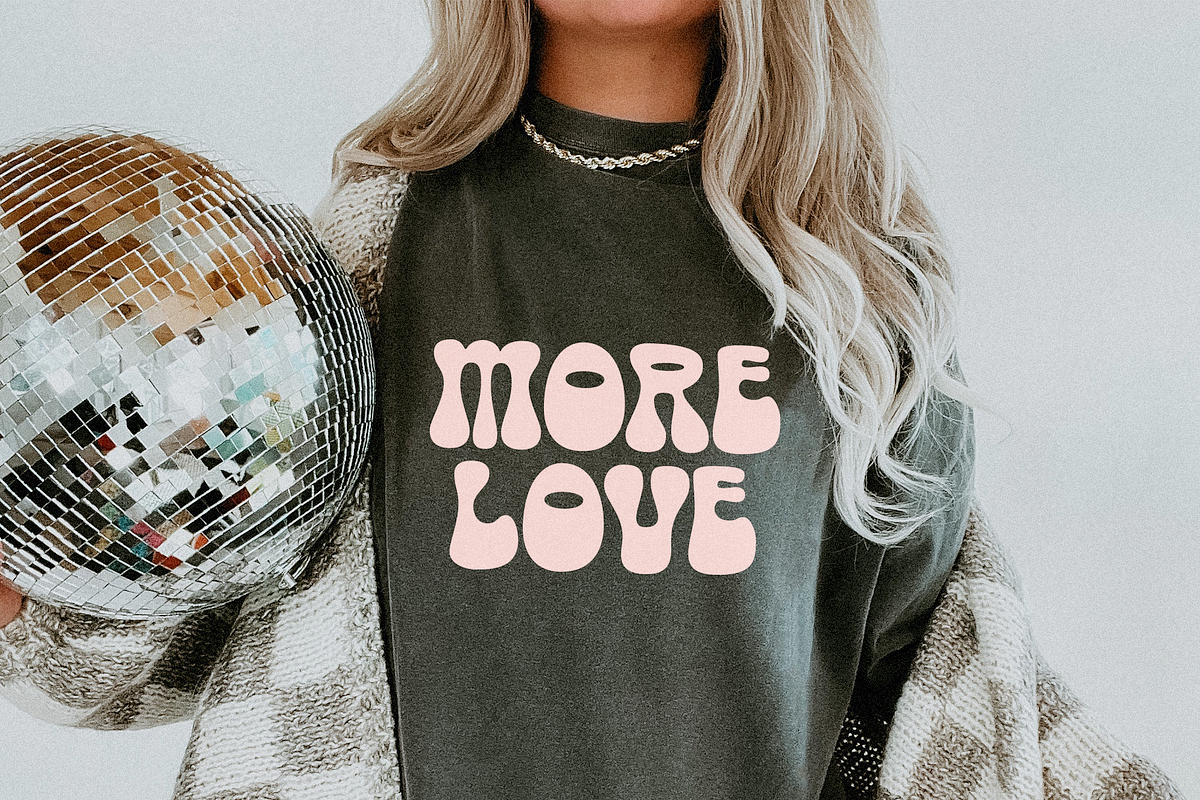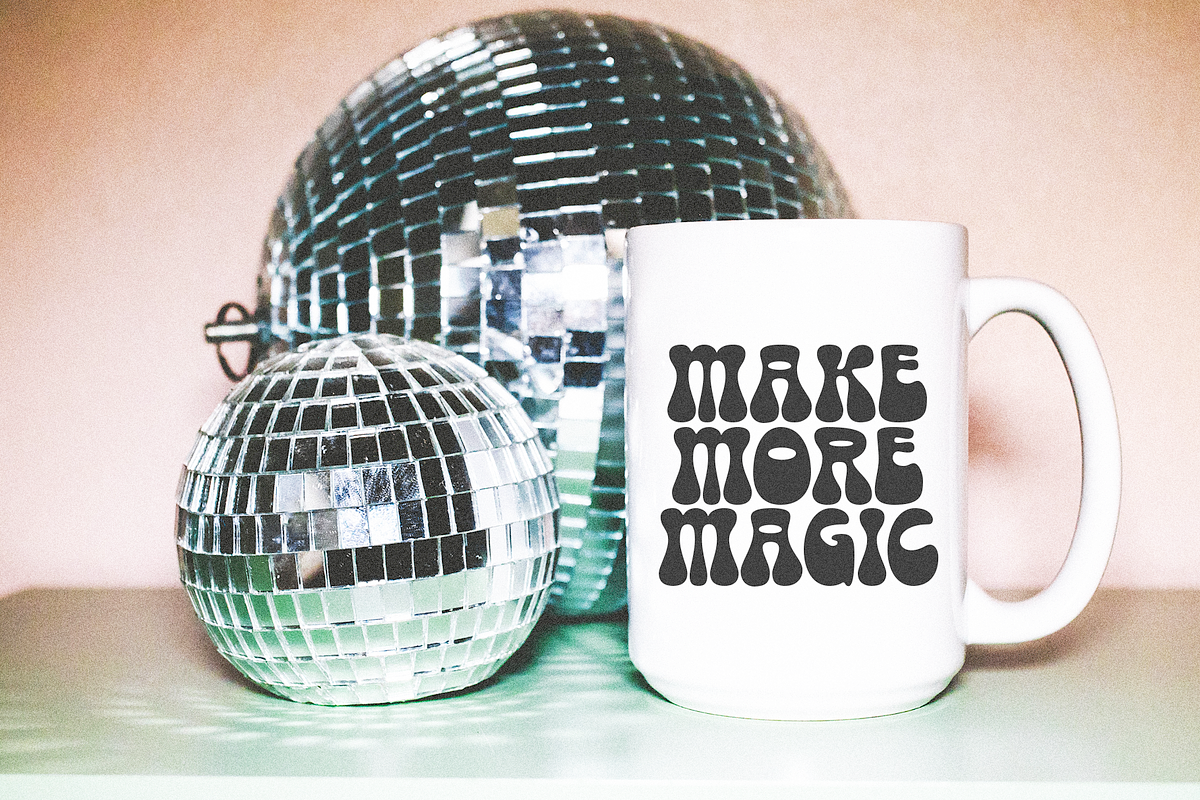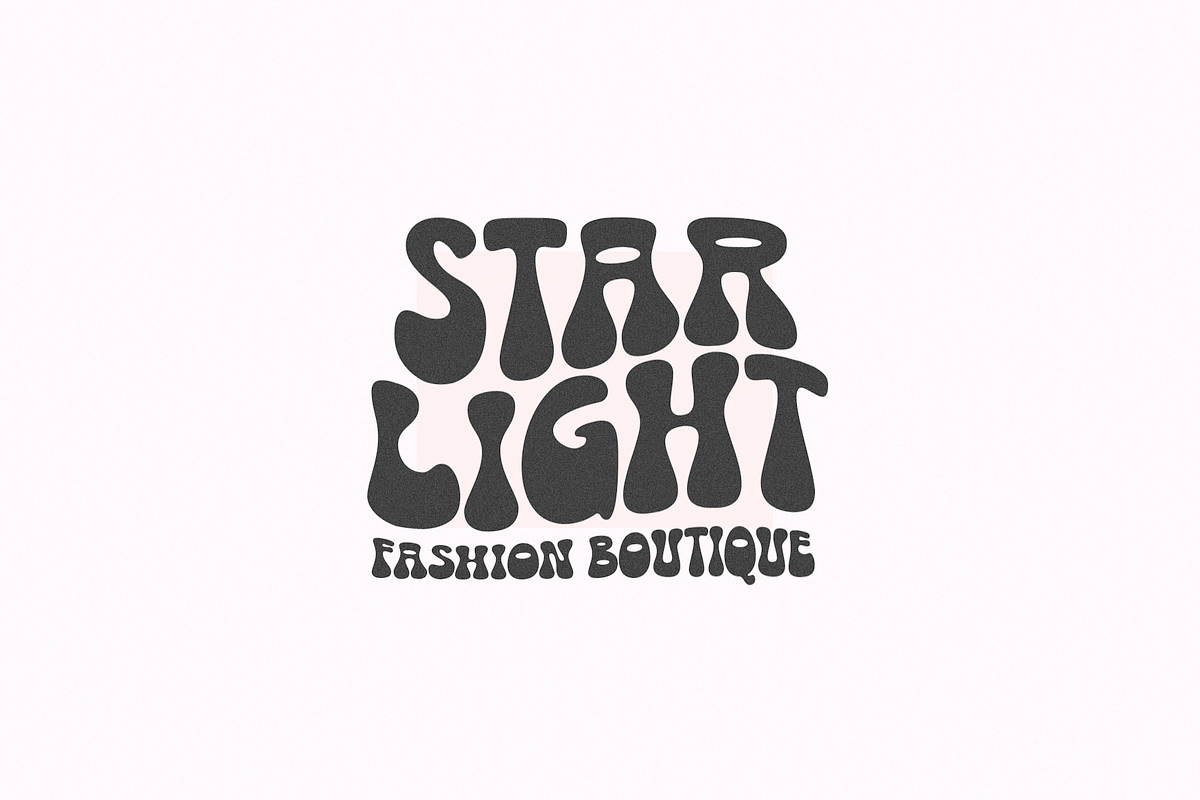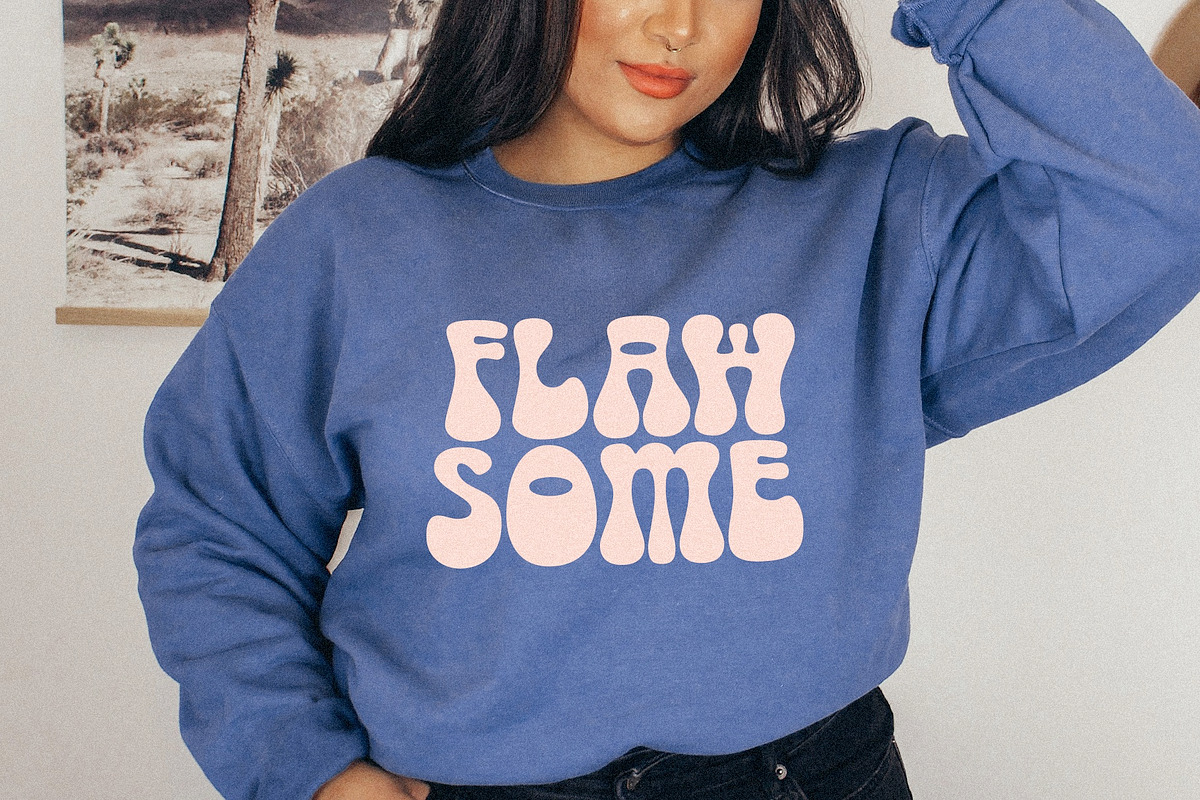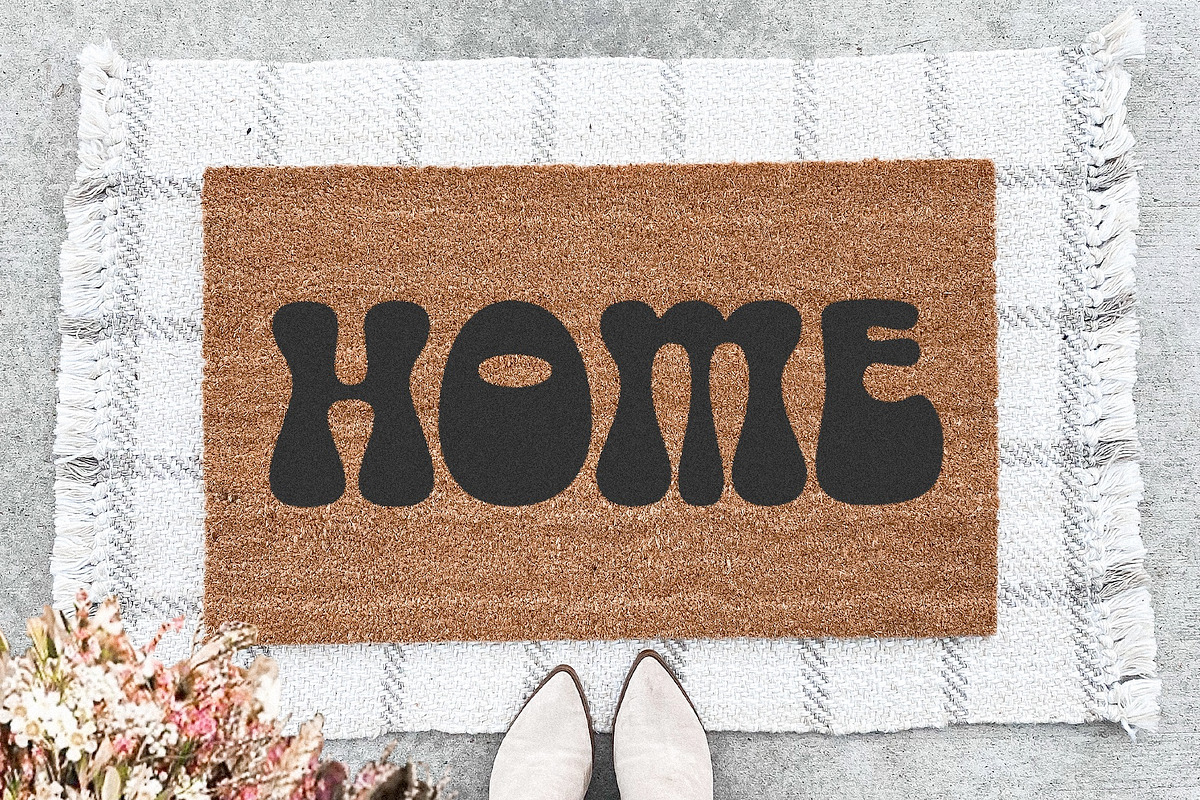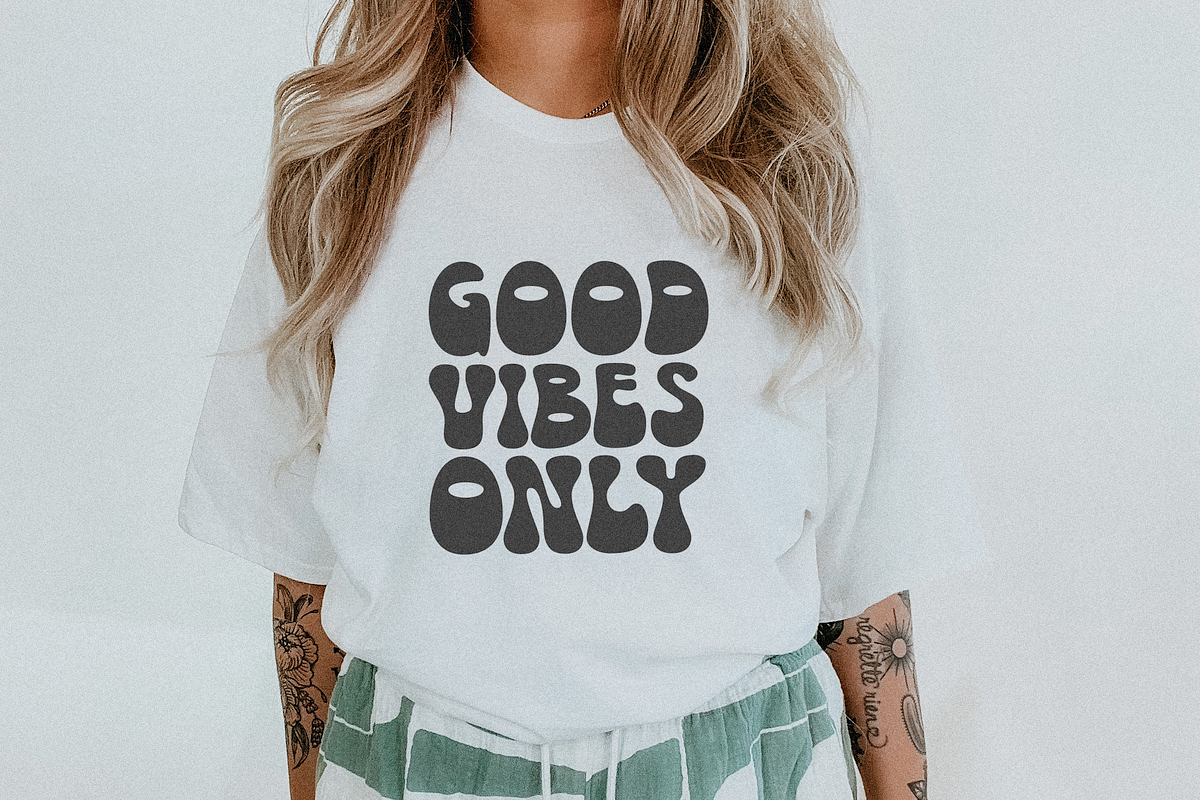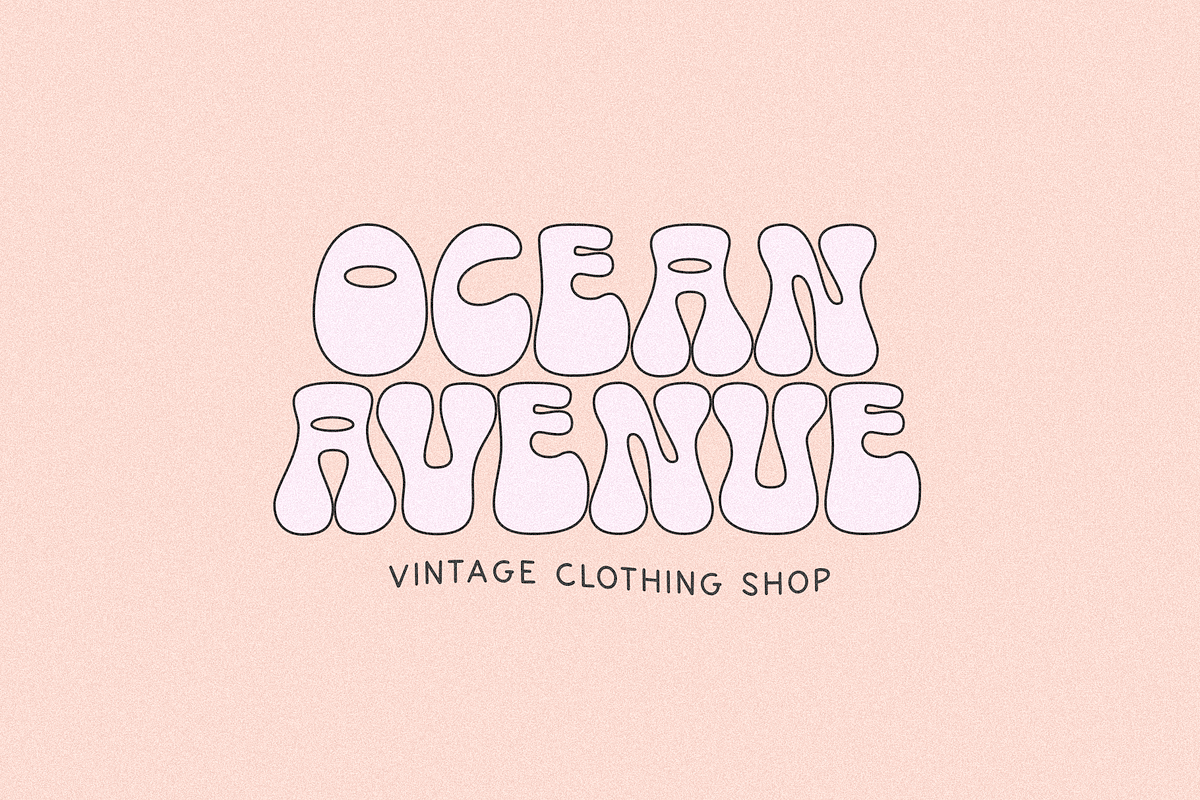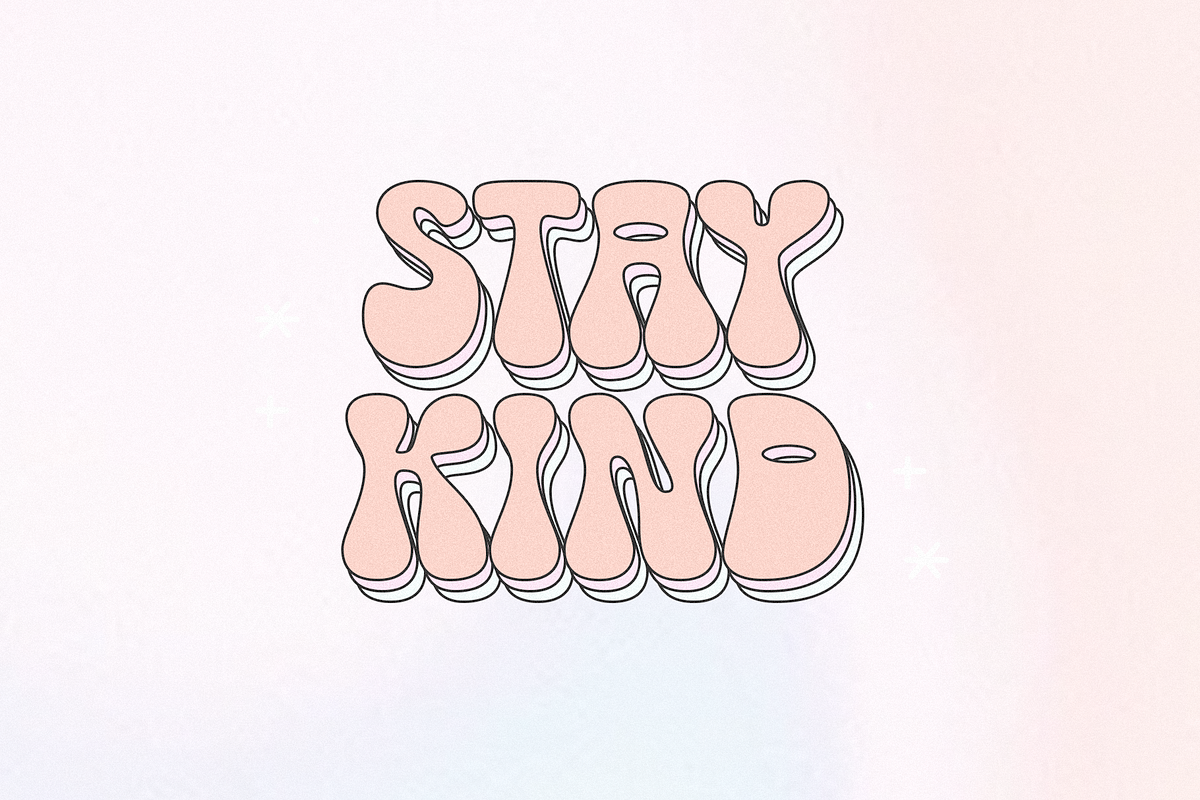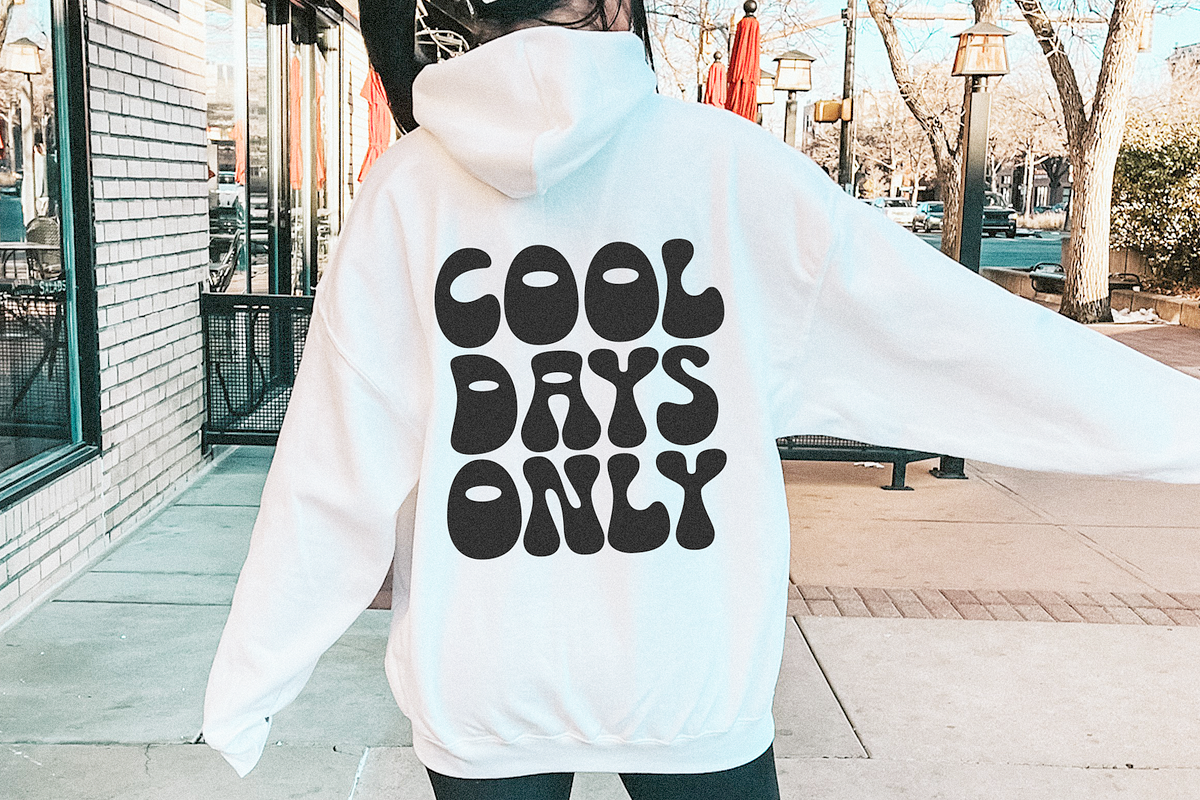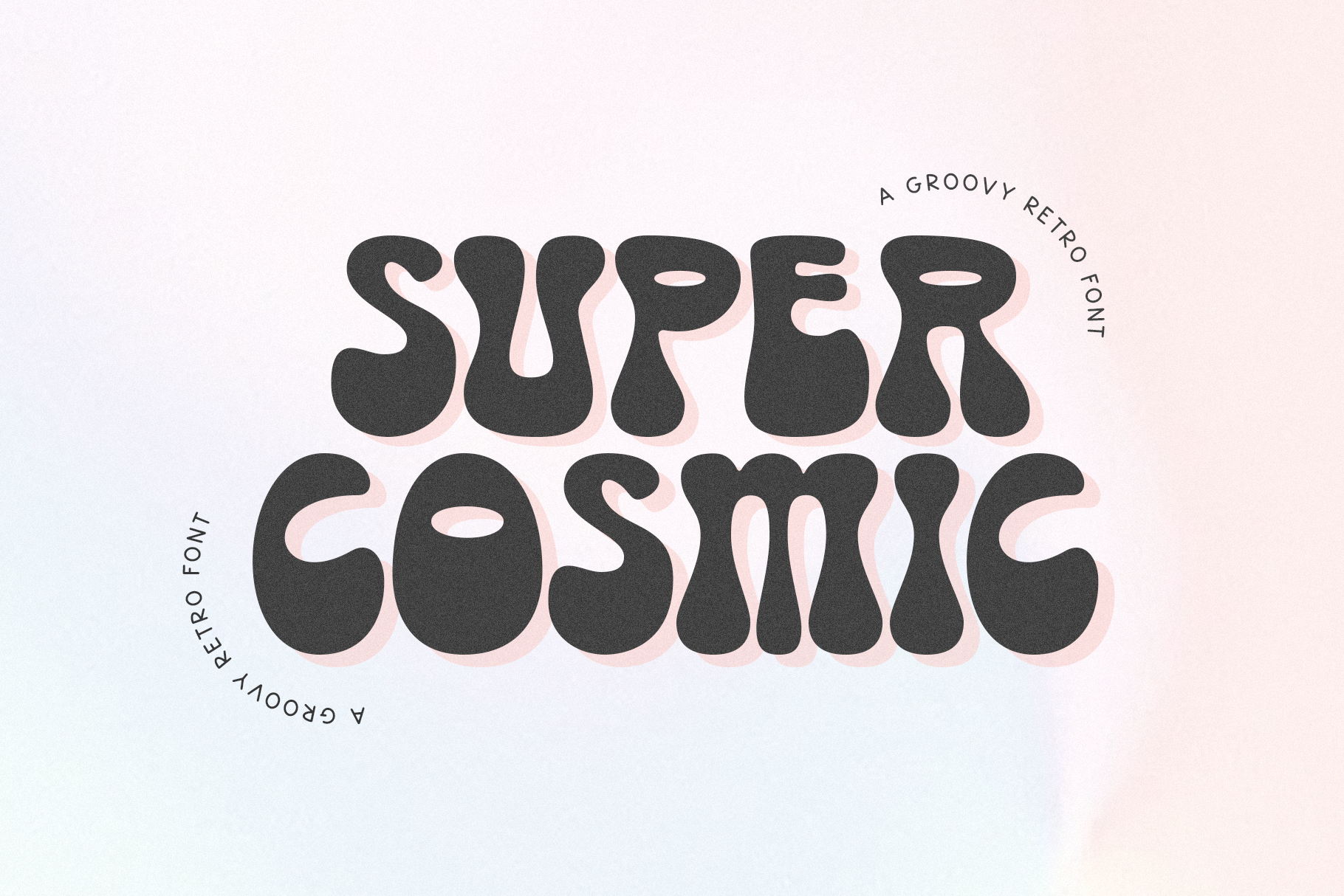
Super Cosmic | Bubbly Retro Font
Super Cosmic is a bubbly retro font.
This font is perfect for your design projects, graphic tees, stickers, procreate, mugs, logos and more!